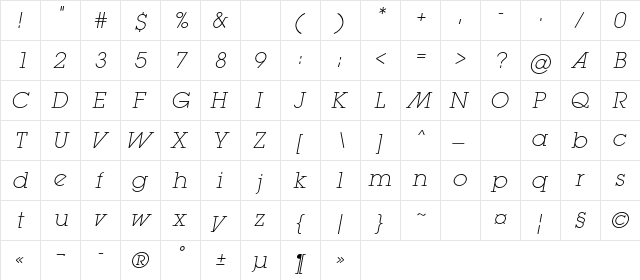
LugaExtraLightAdC Italic
Design Context for LugaExtraLightAdC Typeface
LugaExtraLightAdC is a composed and adaptable typeface that performs quietly and consistently across a wide range of design contexts. The slanted form adds forward momentum and visual energy. The delicate stroke weight brings airiness and refinement to layouts.
Pro Tip: Try LugaExtraLightAdC for annotation and caption copy alongside an upright companion — the contrast in angle creates a dynamic but ordered typographic system.